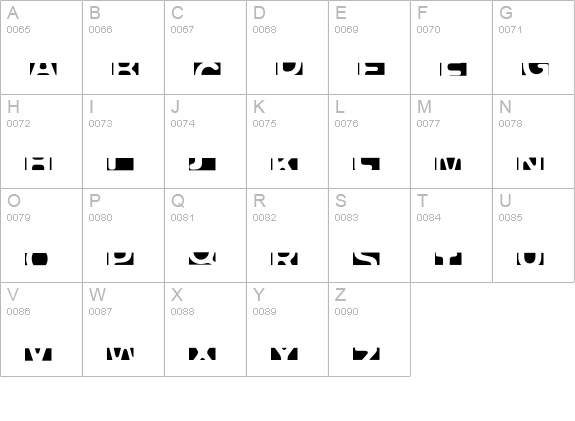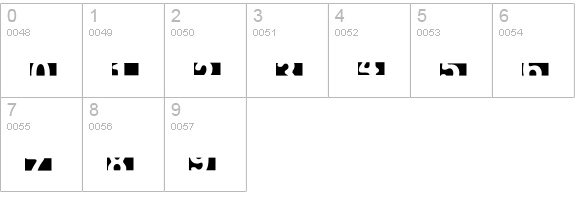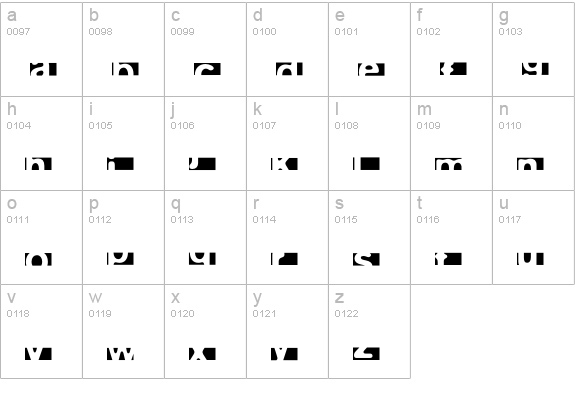
FPeep-NegativeLevel Font Details
FPeep-NegativeLevel font is a modern and sleek typeface that exudes sophistication and elegance. Its sharp lines and unique design make it perfect for adding a touch of contemporary style to any project. The font features negative space elements that create a visually striking effect, making it stand out from traditional fonts. What sets FPeep-NegativeLevel font apart is its versatility - it can be used for a wide range of design projects, from branding and marketing materials to web design and social media graphics. Whether you're looking to create a sleek and professional look or add a touch of flair to your designs, this font has you covered. Best of all, FPeep-NegativeLevel font is available for free download at FontsMarket.com. This means that you can easily access this stylish and eye-catching typeface without having to break the bank. So why wait? Download FPeep-NegativeLevel font today and elevate your design projects to the next level!